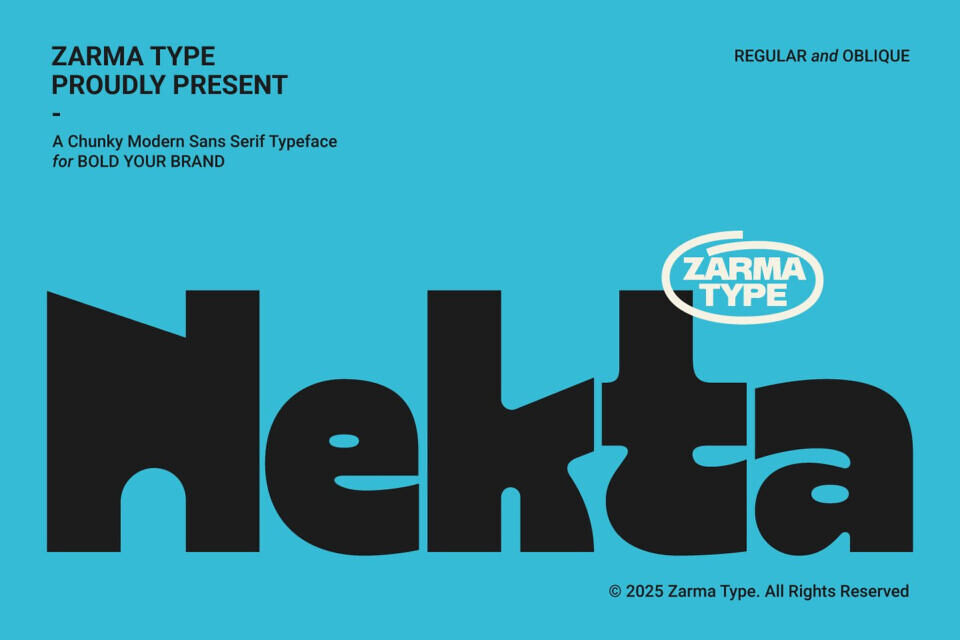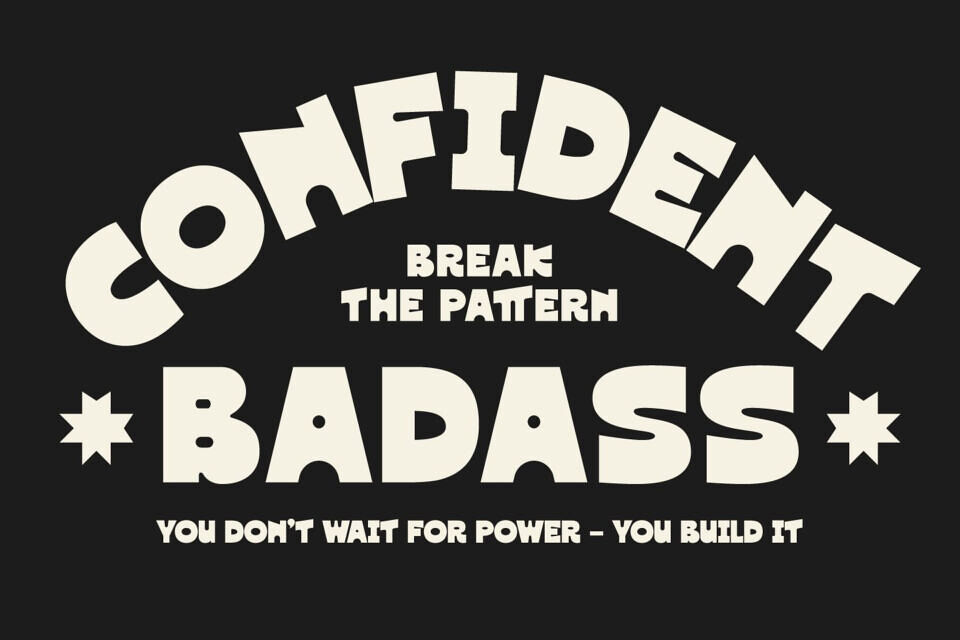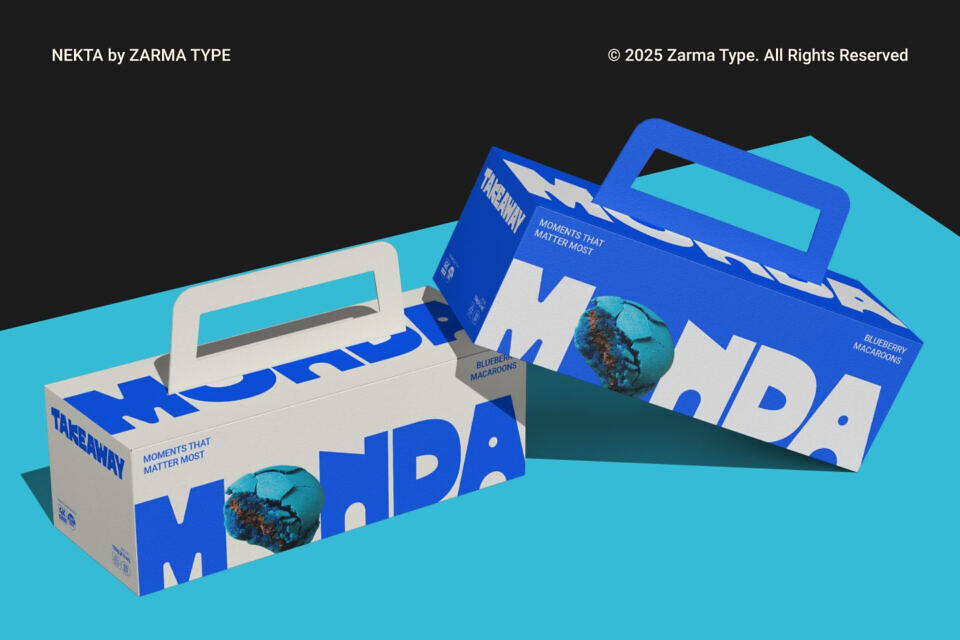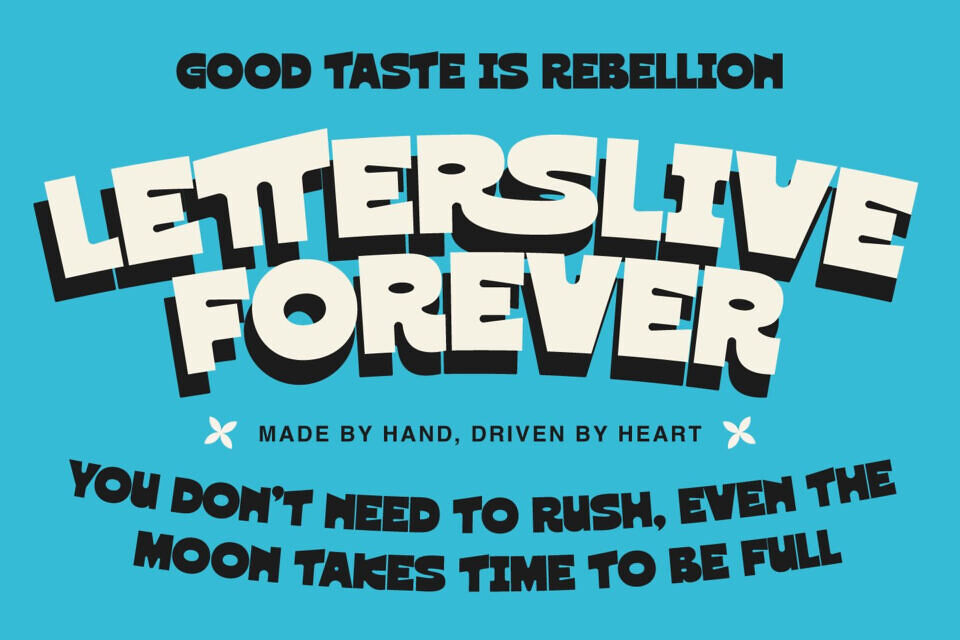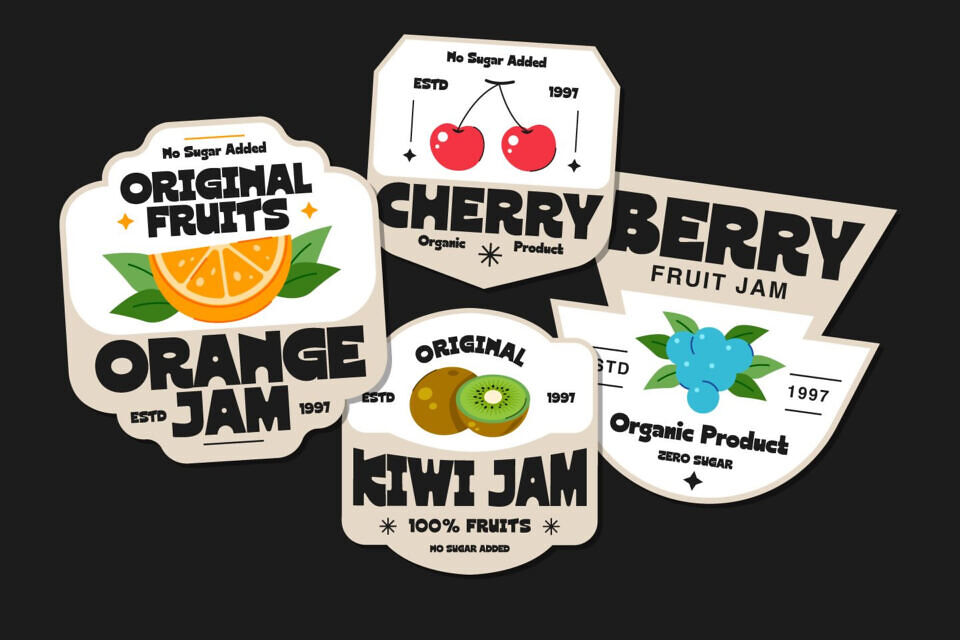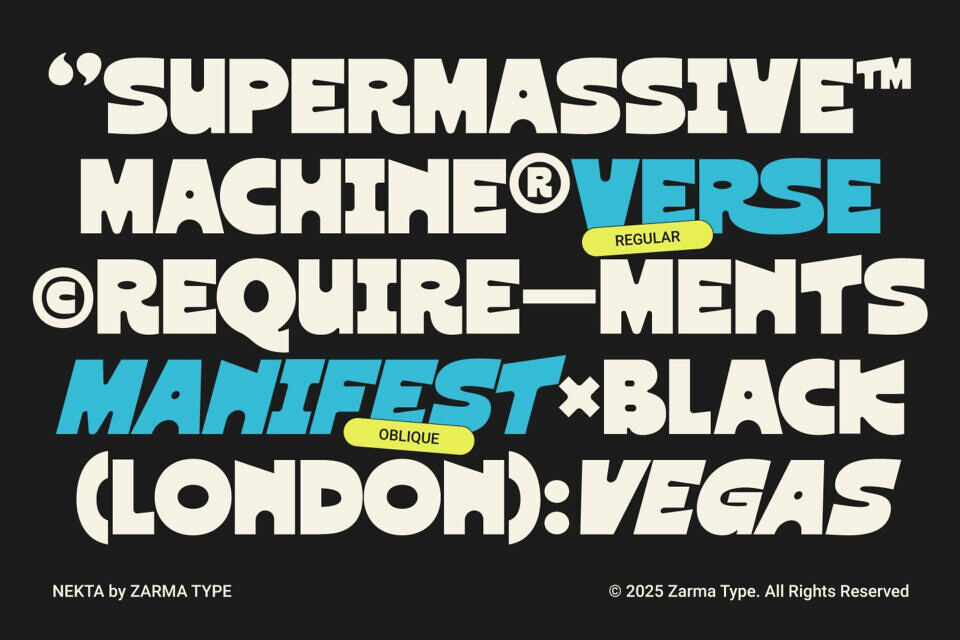
Nekta is a modern sans serif display font with confident weight, rounded corners, and playful geometry that turns short words into powerful headlines. Generous counters and clean spacing keep it readable on menus, posters, and product cards.
Built for practical branding, Nekta holds its structure from small labels to giant billboards. The rhythm stays steady, and the voice remains friendly, even in tight settings. Alternate glyphs help you tune word shapes, while multilingual support keeps global projects consistent. Perfect for Brand identity, menu boards, event posters, product labels, sports tickets, packaging, billboard headlines, social promos, badges, wayfinding.